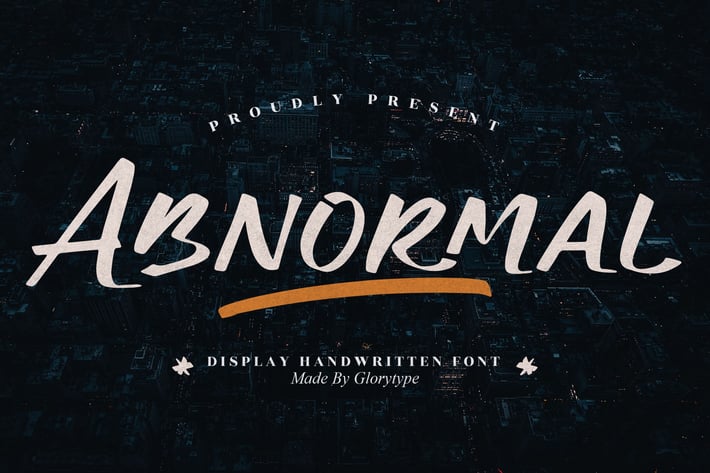
Abnormal Display Handwritten Font
Abnormal is a dynamic handwritten display font designed with bold strokes, gritty character, and expressive movement. Its handcrafted feel adds intensity and personality to any layout, making your headlines look daring, strong, and visually striking. Perfect for designs that need an adventurous, raw handwritten vibe.
Handwritten display style with bold textured strokes
Strong personality for standout titles
Natural brush flow and imperfect handmade details
Works great for both print and digital projects
Posters
Urban branding
Film titles
Social media visuals
Merchandise
Adventure-themed graphics
Creative marketing materials
Bold, rugged, and full of attitude — Abnormal brings handcrafted energy to every design.*